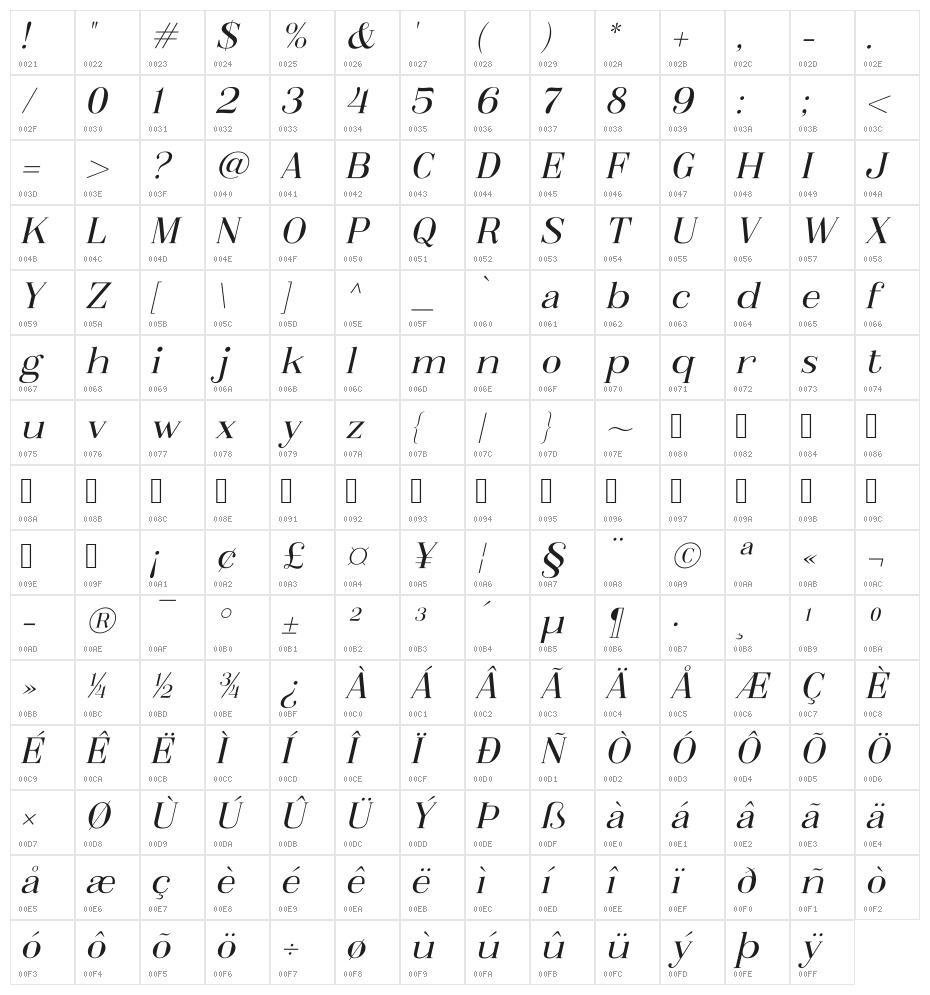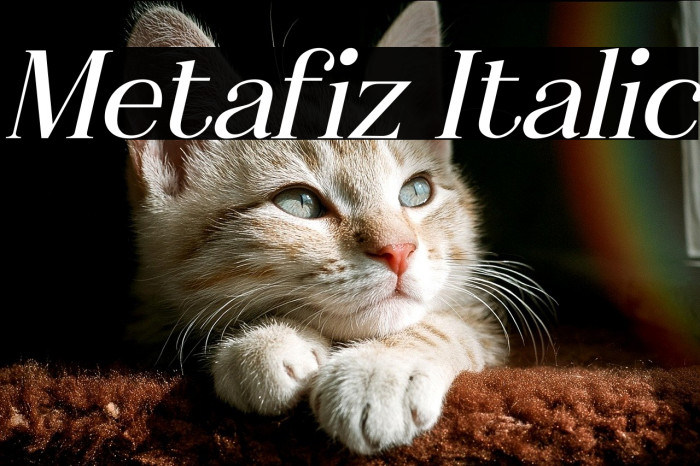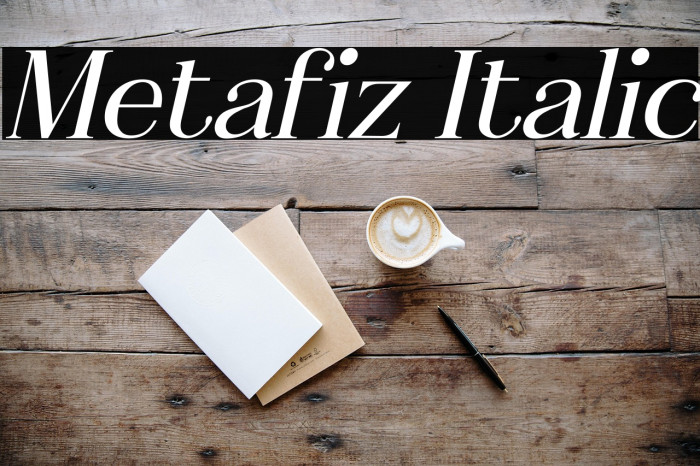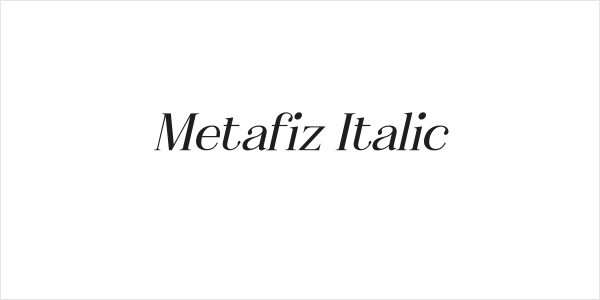
Metafiz Italic Font
Metafiz Italic Description
This elegant and sophisticated typeface features a classic italic style with a refined and graceful appearance. The letters are slightly slanted, adding a dynamic and fluid motion to the text. The strokes are smooth and consistent, with moderate contrast between thick and thin lines, giving it a polished and professional look. The serifs are subtle yet distinct, enhancing readability while maintaining an air of sophistication. This font is versatile, suitable for both formal and creative applications, and it exudes a timeless charm that can elevate any design project.
| Proposed Projects | Ideal for luxury branding, editorial design, wedding invitations, and high-end product packaging. |